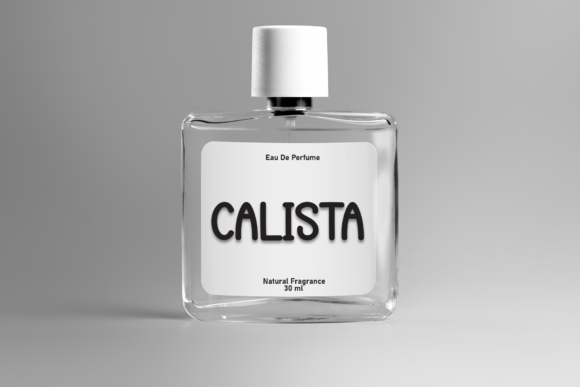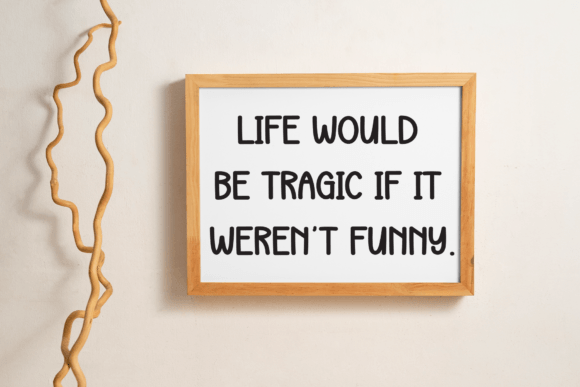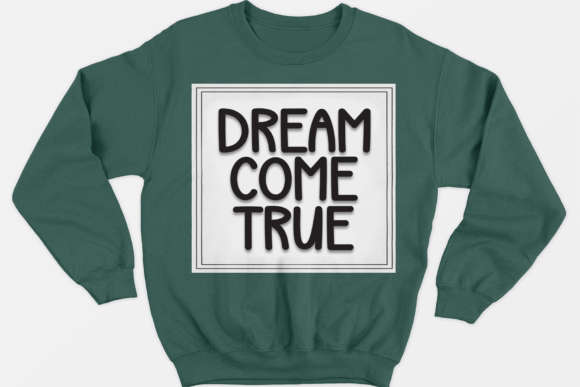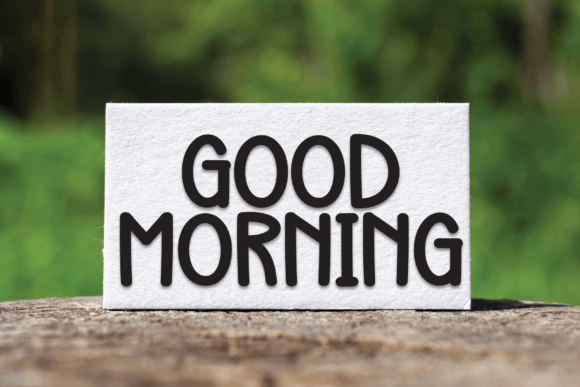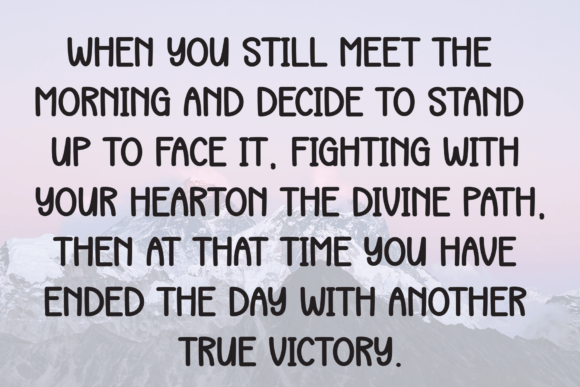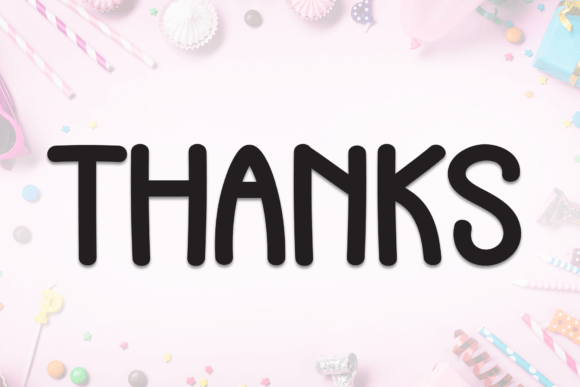
Introducing Happy Birthday Font: The Perfect Addition to Your Design Collection
Are you tired of using the same old fonts for your designs? Look no further! Happy Birthday Font is a sweet and friendly handwritten font that’s sure to add a touch of personality to your creations. With its natural and unique style, this font is incredibly versatile and can be used for a wide range of designs, from birthday cards and invitations to craft projects and digital art.
The Characteristics of Happy Birthday Font
So, what makes Happy Birthday Font so special? Here are just a few of its key characteristics:
- Handwritten style: Happy Birthday Font has a beautiful, handwritten style that’s perfect for creating personalized and unique designs.
- Natural and unique: The font’s natural and unique style makes it incredibly fitting for a wide range of designs, from rustic and vintage to modern and playful.
- Highly versatile: Whether you’re creating a birthday card, invitation, or craft project, Happy Birthday Font is the perfect choice.
Why Designers and Crafters Love Happy Birthday Font
Designers and crafters alike love Happy Birthday Font for its versatility and charm. Here are just a few reasons why:
- Easy to read: Despite its handwritten style, Happy Birthday Font is incredibly easy to read, making it perfect for designs where you want to convey a message.
- Customizable: With Happy Birthday Font, you can create unique and personalized designs that reflect your brand or style.
- Perfect for DIY projects: Whether you’re creating handmade cards, gift tags, or other craft projects, Happy Birthday Font is the perfect choice.
Ideas for Using Happy Birthday Font
So, how can you use Happy Birthday Font in your designs? Here are just a few ideas to get you started:
- Birthday cards and invitations: Happy Birthday Font is perfect for creating personalized birthday cards and invitations that will make the recipient feel special.
- Handmade crafts: Use Happy Birthday Font to add a personal touch to your handmade crafts, such as gift tags, banners, and other decorative items.
- Digital art: Happy Birthday Font can also be used in digital art, such as creating social media graphics, blog posts, and other online content.
Tips for Getting the Most Out of Happy Birthday Font
Here are a few tips for getting the most out of Happy Birthday Font:
- Experiment with different colors and textures: Happy Birthday Font looks great in a variety of colors and textures, so don’t be afraid to experiment and find the combination that works best for your design.
- Pair it with other fonts: Happy Birthday Font can be paired with other fonts to create a unique and interesting design.
- Use it consistently: To create a cohesive look, use Happy Birthday Font consistently throughout your design.
In conclusion, Happy Birthday Font is a sweet and friendly handwritten font that’s perfect for designers and crafters looking to add a touch of personality to their creations. With its natural and unique style, this font is incredibly versatile and can be used for a wide range of designs. Whether you’re creating birthday cards, invitations, craft projects, or digital art, Happy Birthday Font is the perfect choice. So why wait? Download Happy Birthday Font today and start creating!